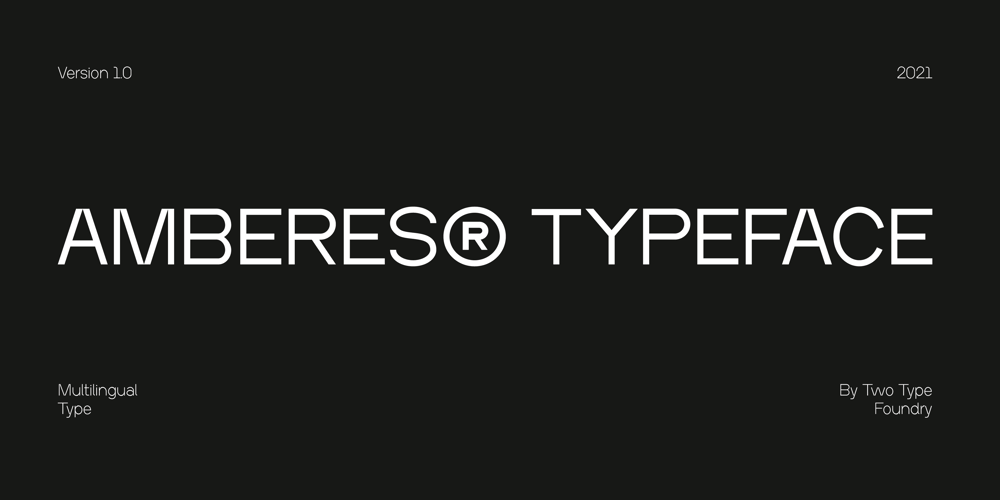
Amberes Grotesk Font Family was designed by Olivier Segers and published by Two Type Foundry. Amberes Grotesk contains 6 styles and family package options. Inspired by the Art Nouveau movement in Belgium we’ve created a new and bold typeface. Amberes® is a sans serif font, it can be a loud and proud hero or a humble supporting actor, upgrading your lay-outs in no time.3 weights plus matching Obliques. The font is distributed in OpenType format, including kerning and other features.This font also includes Latin extended glyphs, so it supports languages such as: Dutch, French, Vietnamese, German, English, Afrikaans, Catalan, Croatian, Czech, Esperanto, Hungarian, Latin, Latvian, Lithuanian, Maltese, Northern Sami, Polish, Serbian, Slovak, Slovene, Sorbian, Turkish and Welsh.